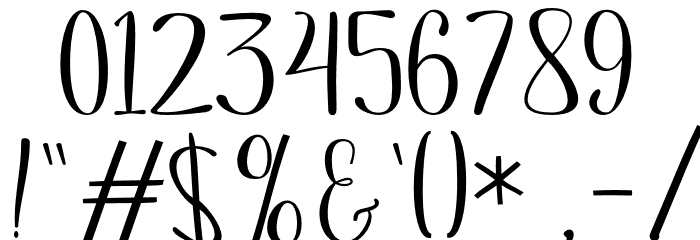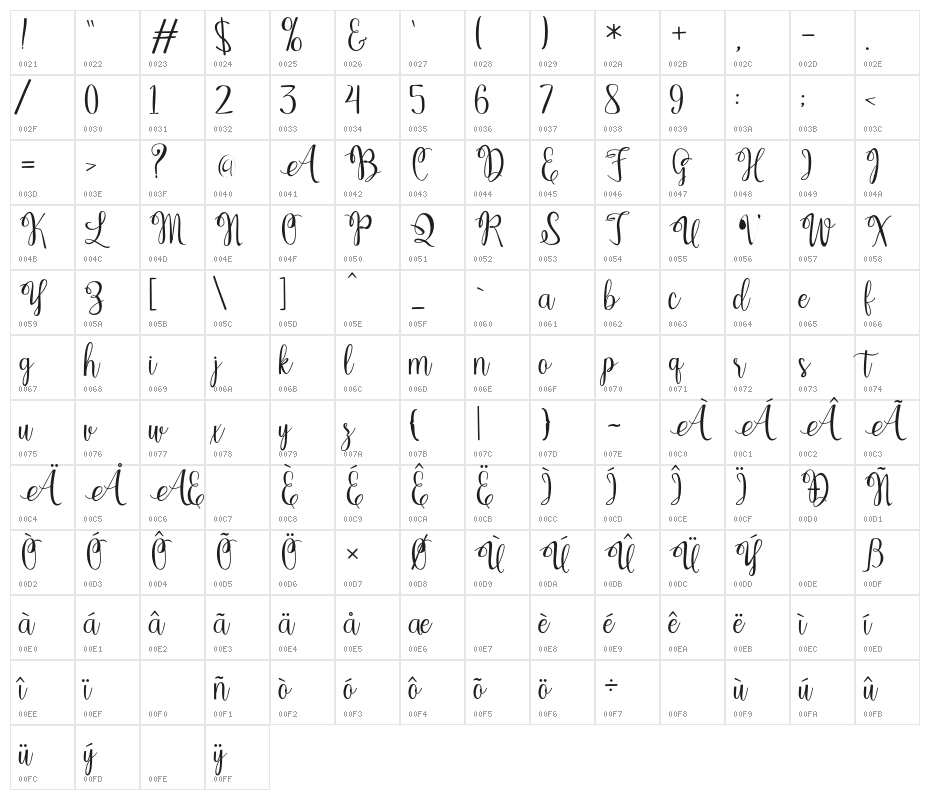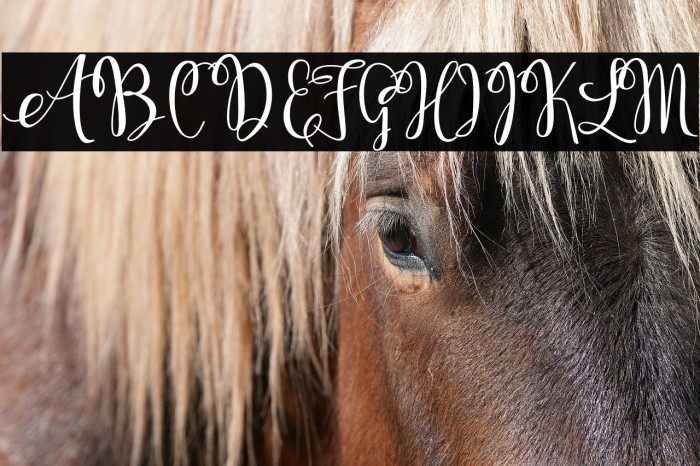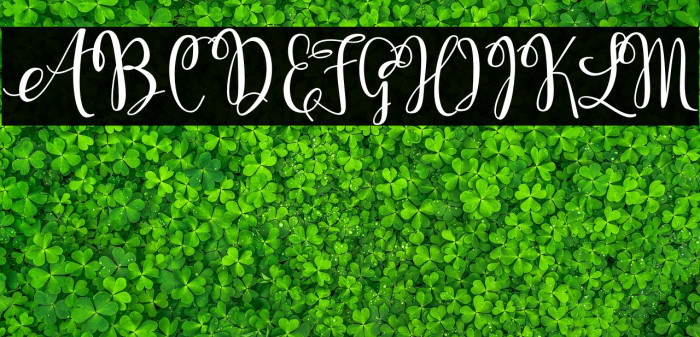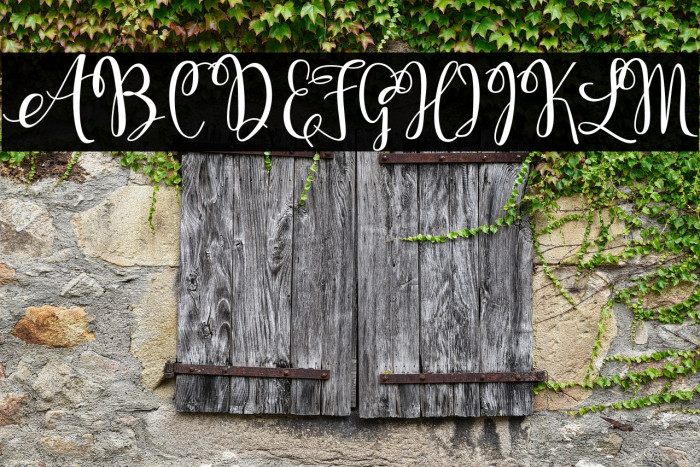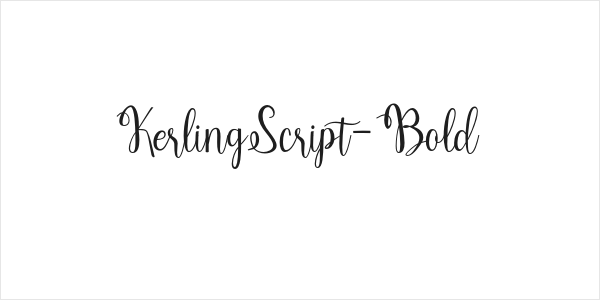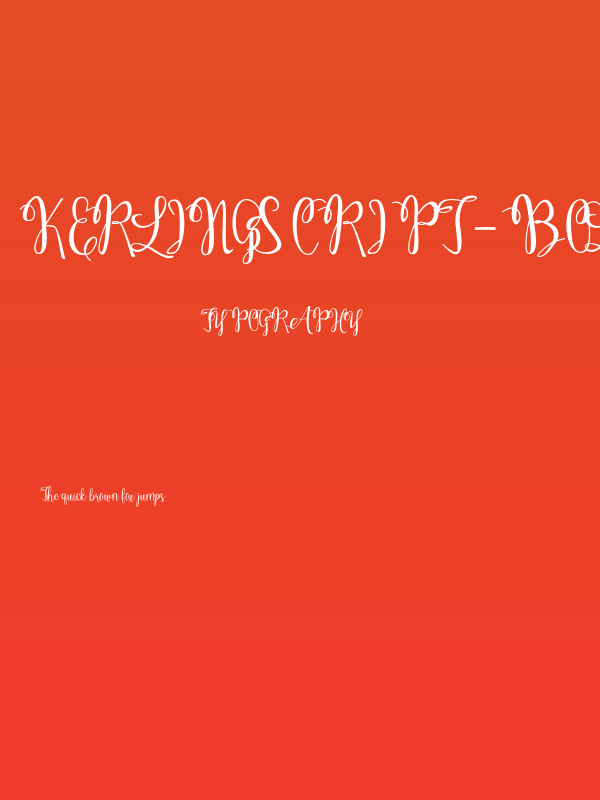
KerlingScript-Bold Font
KerlingScript-Bold Description
This font features an elegant and flowing script style, characterized by its bold and expressive strokes. The uppercase letters are ornate with intricate loops and swirls, giving a sense of sophistication and flair. The lowercase letters maintain a consistent flow, with smooth connections between each character, enhancing readability while preserving the decorative nature. The numerals are distinct and maintain the script's fluidity, ensuring they blend seamlessly with the alphabetic characters. Special characters are crafted with the same attention to detail, making them suitable for a variety of design applications. Overall, this font exudes a sense of elegance and creativity, perfect for projects that require a touch of class and personality.